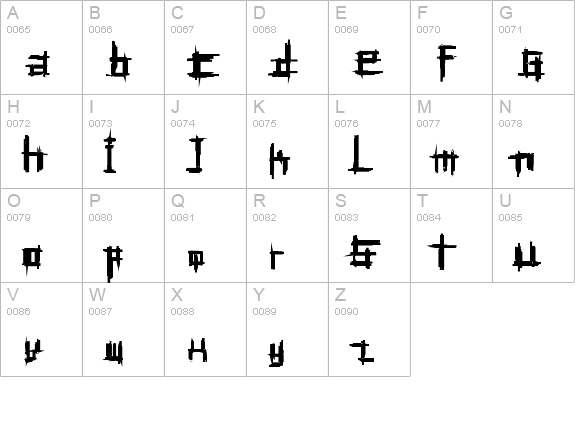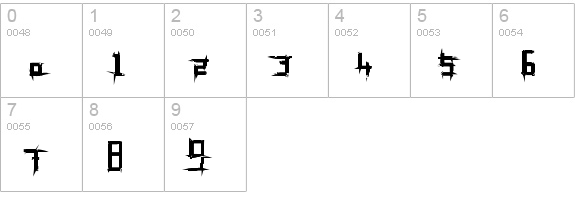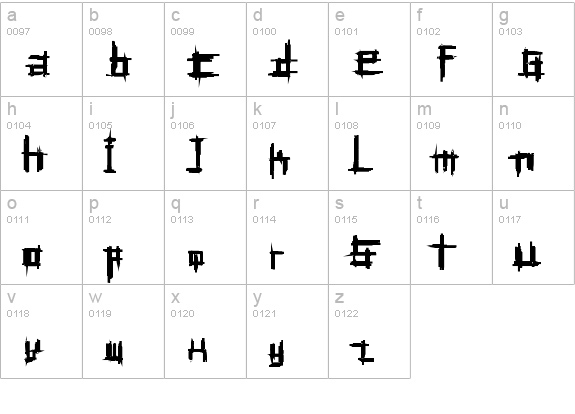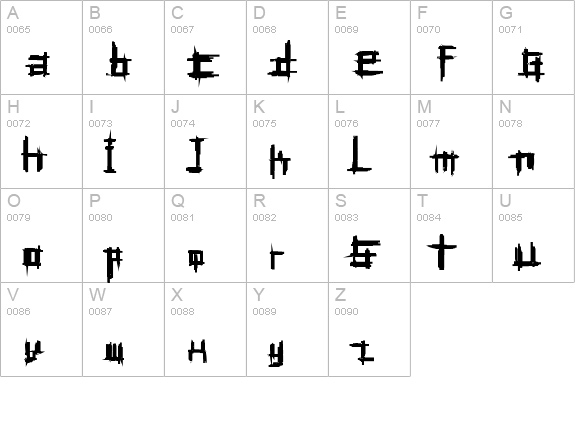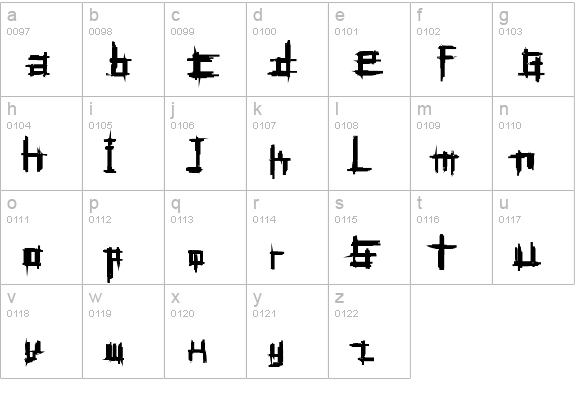
Bruised Fifty Font Details
Introducing Bruised Fifty font, a bold and edgy typeface that exudes a sense of rugged sophistication. Each character in this font appears as though it has endured the test of time, with rough edges and a weathered appearance that adds a unique charm to any design. The Bruised Fifty font is perfect for projects that require a touch of grit and individuality, making it a versatile choice for branding, posters, and more. Best of all, this distinctive font is available for free download at FontsMarket.com. Whether you're a seasoned designer looking to add a fresh element to your work or a newcomer seeking a standout typeface for a project, Bruised Fifty font is sure to make a statement. Embrace the character and personality of this font and let your creativity shine with every character you type.